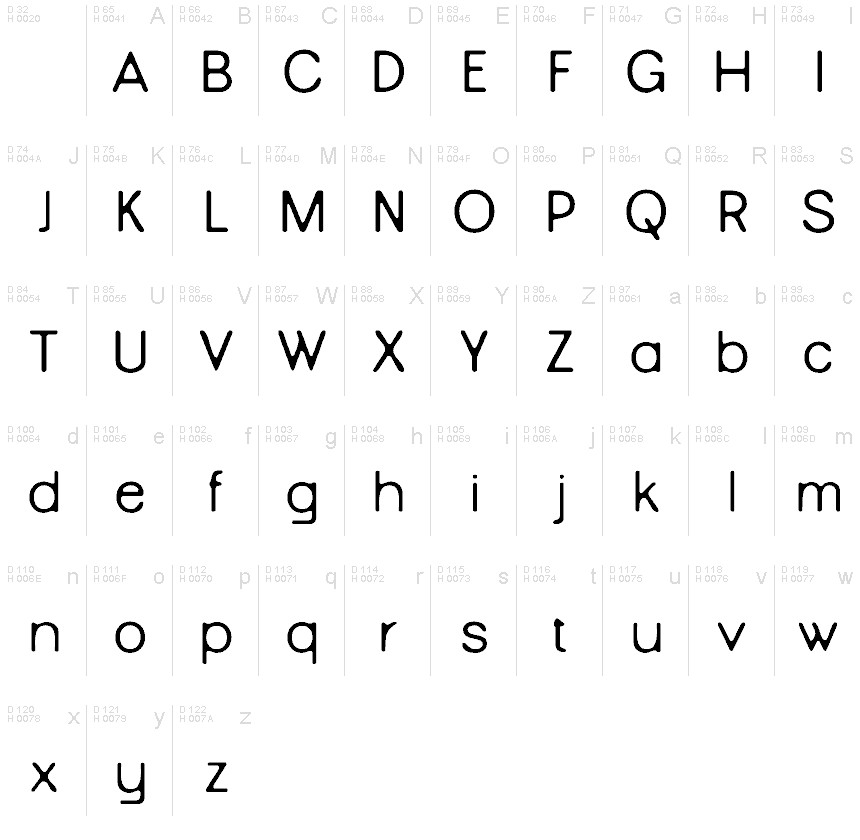
HeilyBlur-Regular Demo
Heily Blur font by Craft Supply Co. is a free sans-serif font whose modern aesthetic and clean-cut design make for a unique choice in designs. The font has geometric influences that are obvious within its shapes and thick curvatures that give it a smooth flow while maintaining a friendly vibe.